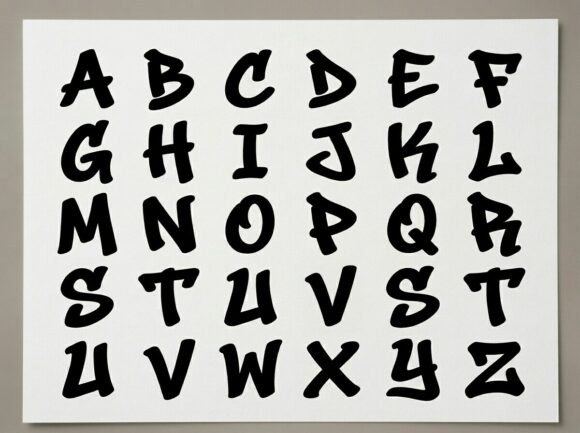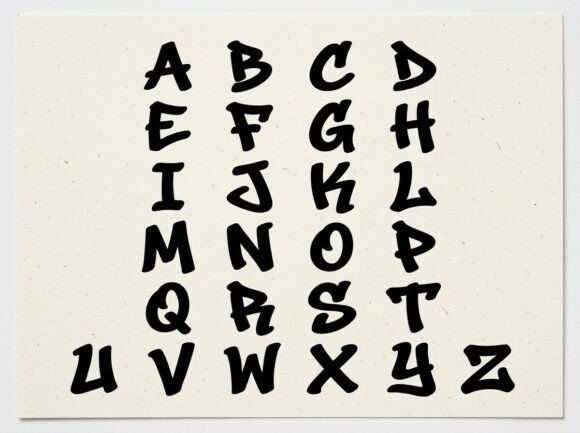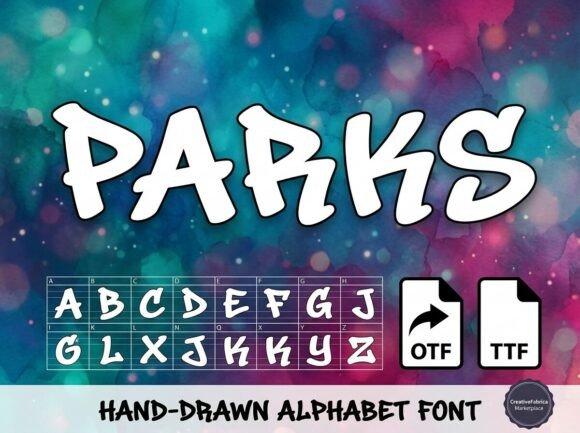
Introduction to Parks Font
Discover the raw, expressive charm of the streets with Parks, a hand-drawn graffiti font designed for artistic impact.
This typeface features chunky, rounded letterforms characterized by an organic โbubbleโ aesthetic and playful, asymmetrical terminals that evoke the authentic energy of urban mural art Its heavy visual weight and rhythmic, hand-lettered posture provide a sophisticated yet approachable street-style aesthetic, making it an exceptional choice for modern streetwear branding, creative editorial headers, artisanal skate packaging, and edgy social media content.